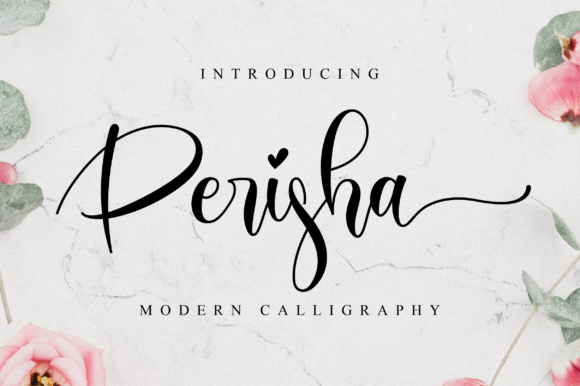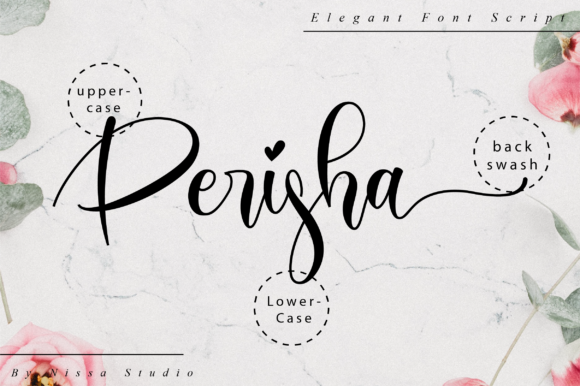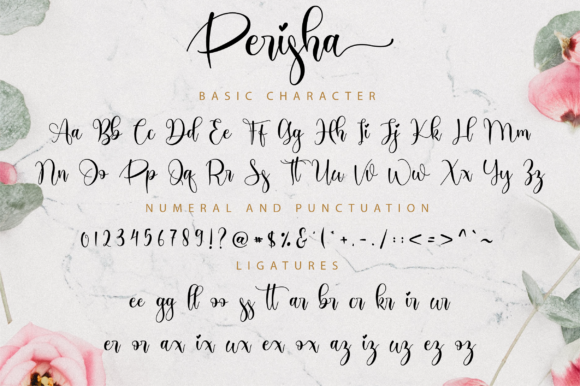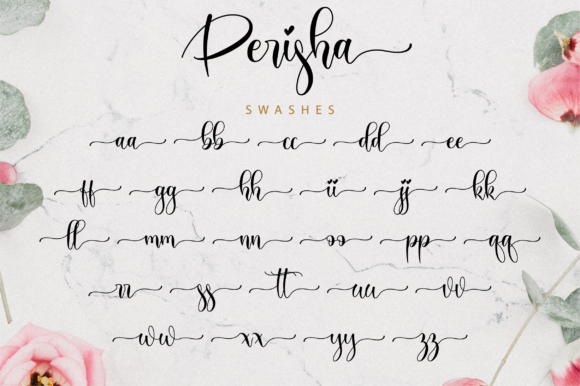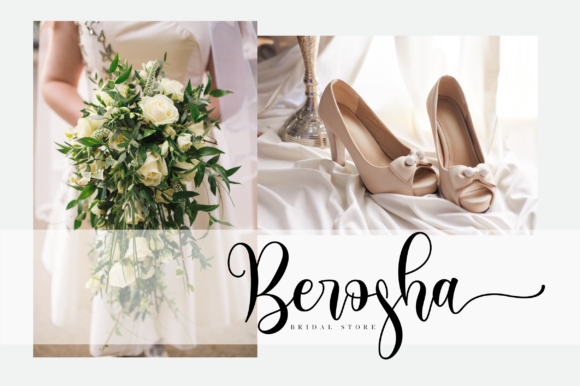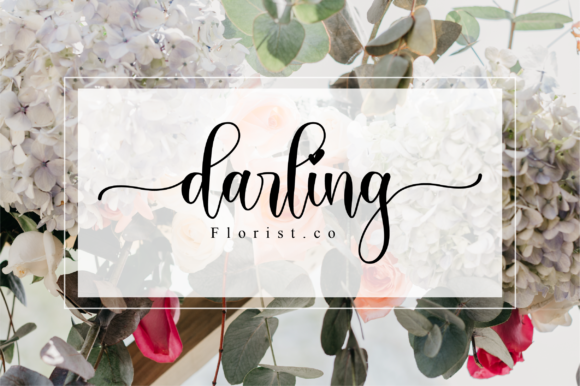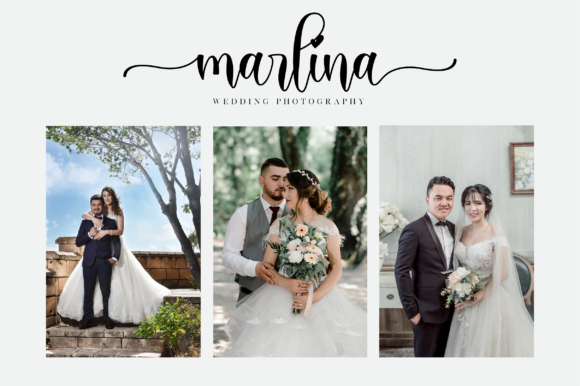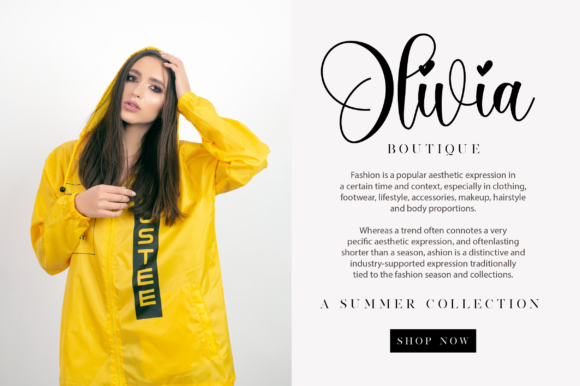
Perisha Font
About Perisha Font
Perisha is a beautiful script font that has a classy, elegant, and modern look. It is perfectly suited for a wide variety of projects!